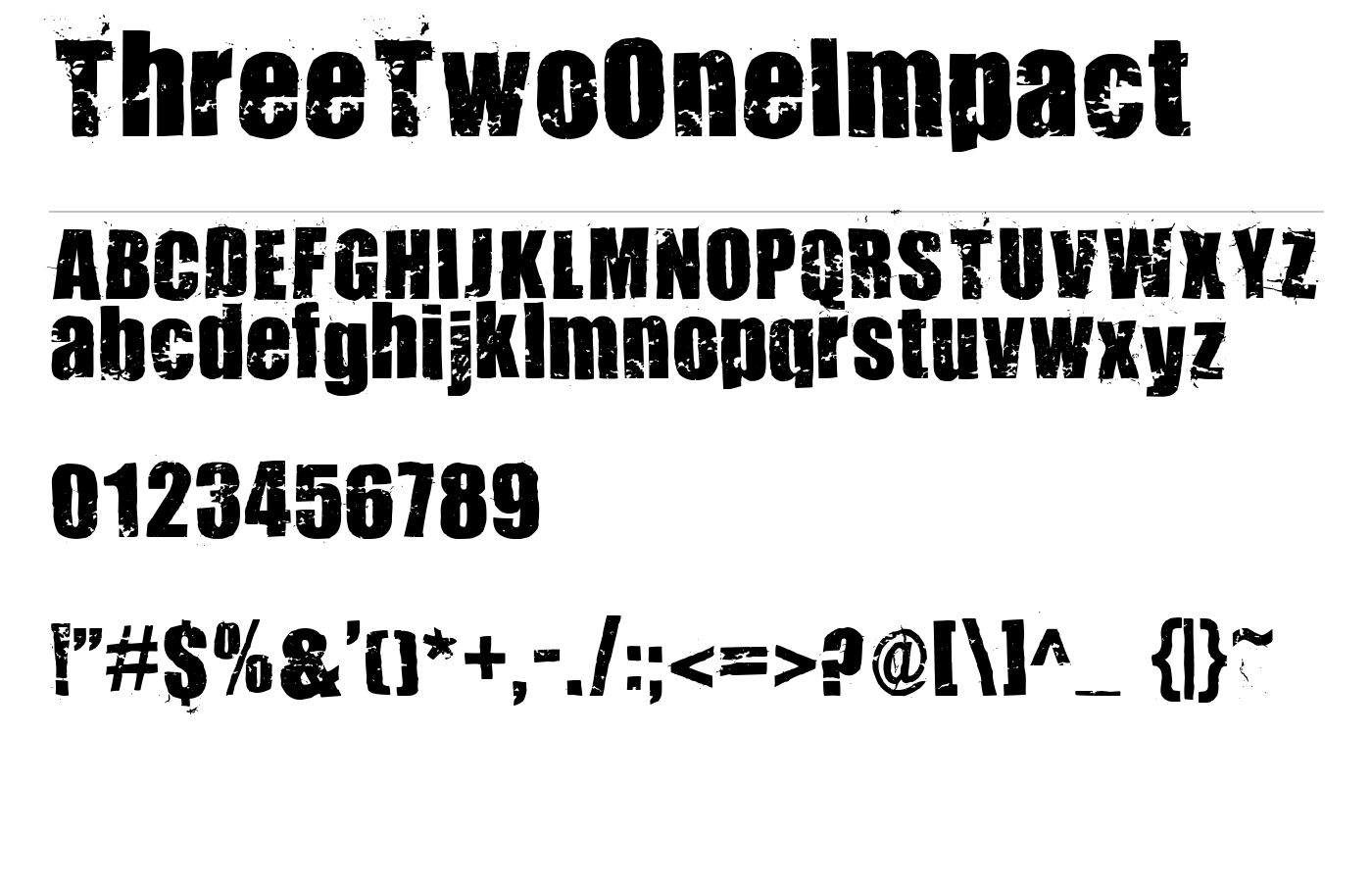
ThreeTwoOneImpact is a bold, condensed sans serif font with a distressed texture that gives it a rugged, grunge style. Its tall, tightly spaced letterforms and strong presence make it perfect for striking headlines, posters, and edgy branding that need to grab attention with a raw, urban vibe. This font works well where a powerful yet worn look is desired, adding personality to creative and alternative designs.
ThreeTwoOneImpact Font
About ThreeTwoOneImpact Font
| Font family | ThreeTwoOneImpact Font |
| Designer | Kenny Redman |